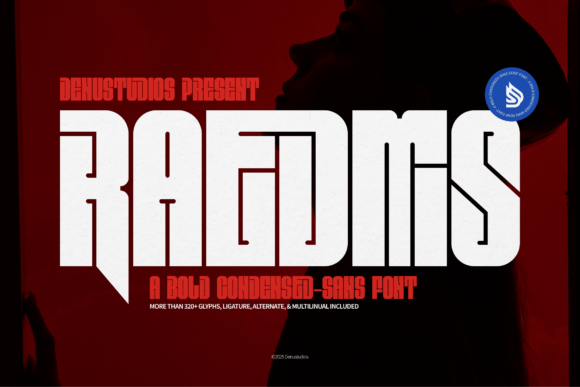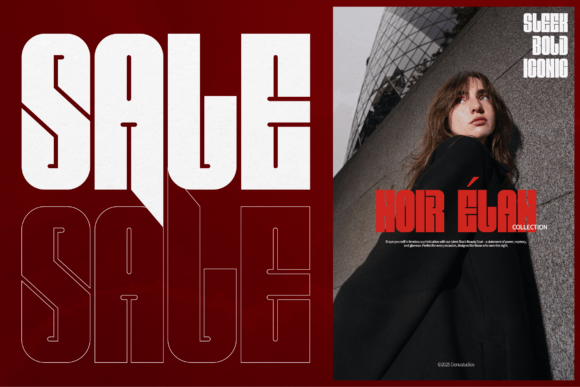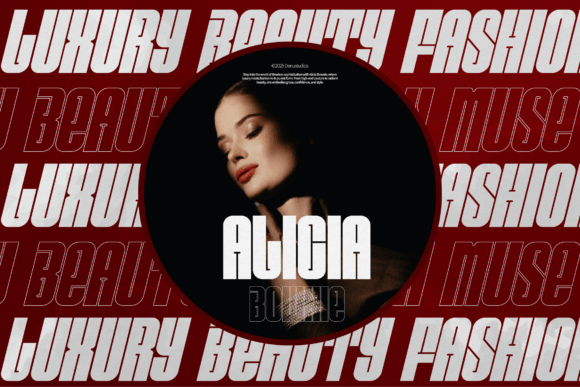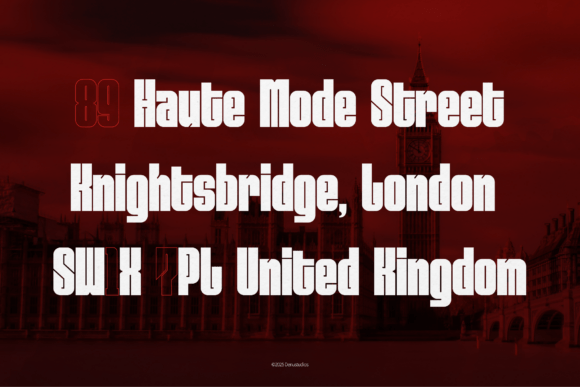
Raedmis Font: Bold Headline Sans Serif for Modern Branding & Posters
About the Raedmis Font
Discover the charm of Raedmis Font. This font is a perfect blend of modern aesthetics and classic appeal. Raedms is a striking bold condensed sans-serif font designed to make an impact. Featuring sharp geometric edges, clean lines, and modern styling, this font is ideal for posters, headlines, branding, and editorial projects that demand a bold presence. With over 320+ glyphs, ligatures, alternates, and multilingual support, Raedms combines functionality with fierce aesthetics for any creative project.
Raedmis excels in large-scale applications such as headlines, logos, and short impactful statements where its bold condensed form commands attention. It’s also well-suited for branding projects aiming for a modern and assertive feel, particularly technology, automotive, or fashion brands. However, its condensed nature and strong weight make it less suitable for body text or UI elements where readability over long stretches is crucial.
Pairing Raedmis effectively requires considering its strong geometric personality. A classic serif like Garamond or a clean sans-serif like Lato would provide a sophisticated contrast, balancing Raedmis’ boldness with a touch of elegance or neutrality. For a more playful feel, a rounded sans-serif like Montserrat could be used. Avoid pairing it with other highly stylized or condensed fonts to prevent visual clutter.
Its core personality is assertive and modern, conveying confidence and authority. Brands seeking to project a strong, contemporary image will find Raedmis a powerful tool.
Raedmis Font Usage Examples
Raedmis Font Example